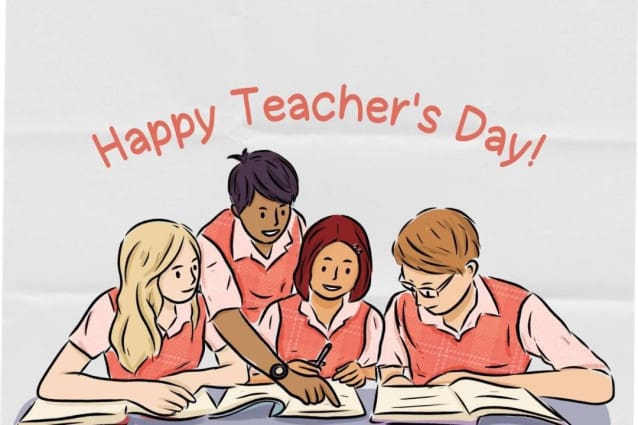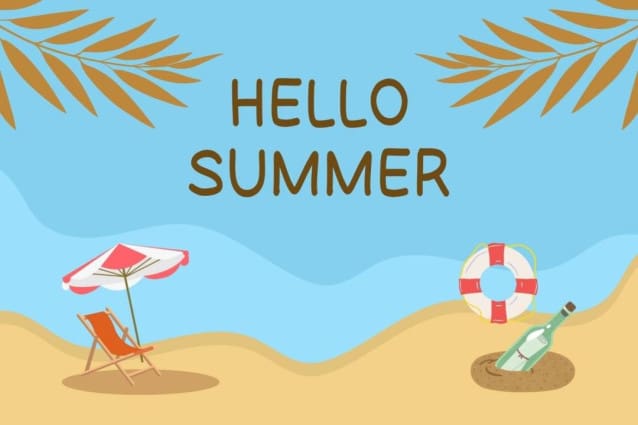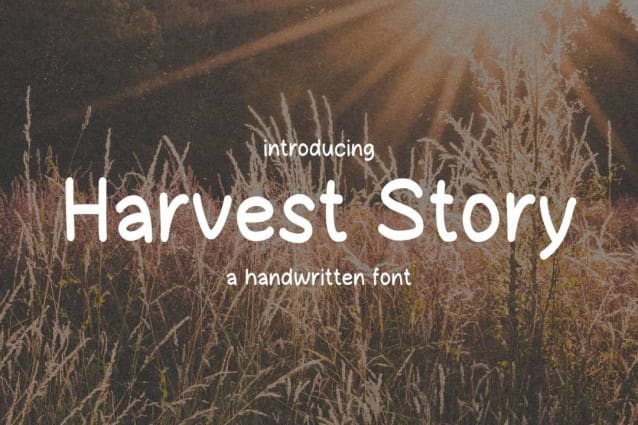
Harvest Story Font
Harvest Story Font a sweet and friendly handwritten font. Cute and fun, this font is ideal for writing wedding invitations, cards, or any other design that might need a fun touch!